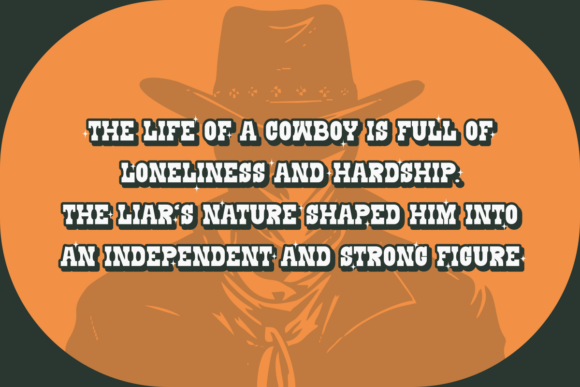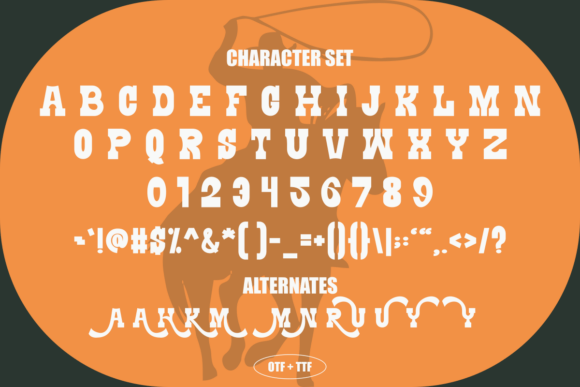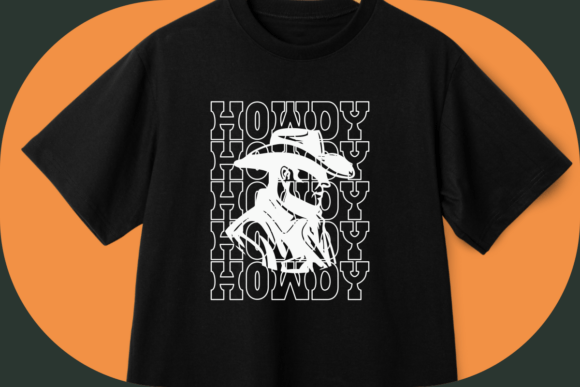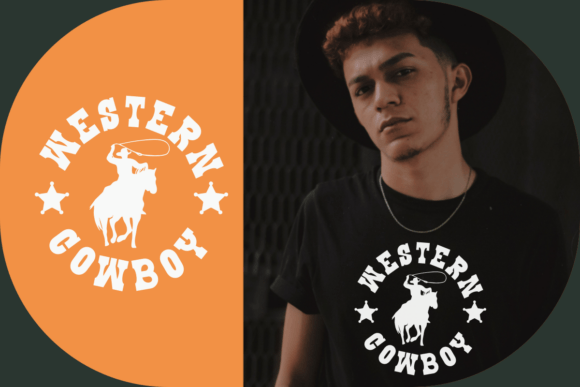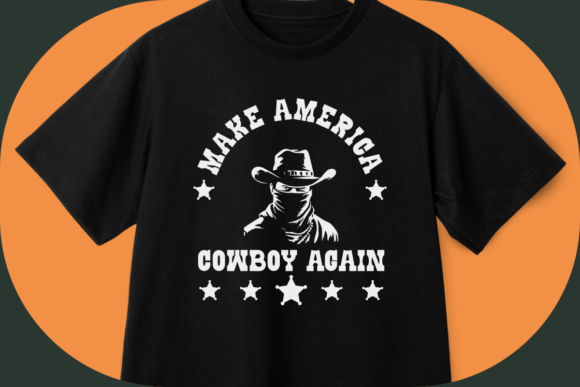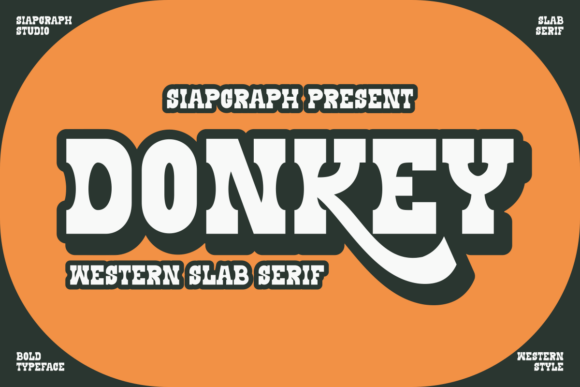
Introducing Donkey Font: The Ultimate Western-Style Slab Serif for Eye-Catching Designs
Are you a designer or crafter looking for a font that can add a touch of rustic charm to your projects? Look no further than the Donkey Font, a bold and rugged Western-style slab serif font that’s perfect for crafting eye-catching designs on t-shirts, posters, and more. With its thick strokes and distinctive serifs, this font is sure to make a statement and leave a lasting impression.
What is Donkey Font?
Donkey Font is a unique and stylish slab serif font that’s inspired by the classic typography of the American West. Its bold and rugged design makes it perfect for creating vintage-inspired designs, western-themed clothing, and any project that needs a touch of rustic charm. Whether you’re a designer, crafter, or DIY enthusiast, Donkey Font is the perfect choice for adding a touch of personality to your work.
Key Features of Donkey Font
- Bold and Rugged Design: Donkey Font features thick strokes and distinctive serifs that give it a bold and rugged look.
- Western-Style Typography: Inspired by the classic typography of the American West, Donkey Font is perfect for creating vintage-inspired designs and western-themed clothing.
- Slab Serif Design: The font’s slab serif design gives it a unique and stylish look that’s perfect for adding a touch of rustic charm to your projects.
- High-Quality Vector Graphics: Donkey Font is designed as high-quality vector graphics, ensuring that it looks great at any size.
Uses for Donkey Font
Donkey Font is a versatile font that can be used for a wide range of projects, including:
- T-Shirt Designs: Add a touch of rustic charm to your t-shirt designs with Donkey Font’s bold and rugged design.
- Posters and Flyers: Use Donkey Font to create eye-catching posters and flyers that grab attention.
- Western-Themed Clothing: Donkey Font is perfect for creating western-themed clothing, such as band tees, hats, and more.
- Vintage-Inspired Designs: Add a touch of vintage charm to your designs with Donkey Font’s classic Western-style typography.
Why Choose Donkey Font?
There are many fonts to choose from, but Donkey Font stands out for its unique and stylish design. Here are just a few reasons why you should choose Donkey Font for your next project:
- Unique Design: Donkey Font’s bold and rugged design sets it apart from other fonts.
- High-Quality Graphics: The font is designed as high-quality vector graphics, ensuring that it looks great at any size.
Tips for Using Donkey Font
Here are a few tips for getting the most out of Donkey Font:
- Use it as a Statement Font: Donkey Font is perfect for making a statement, so use it sparingly to add emphasis to your designs.
- Pair it with Other Fonts: Donkey Font pairs well with other fonts, so experiment with different combinations to find the perfect look for your project.
- Experiment with Colors: Donkey Font looks great in a variety of colors, so don’t be afraid to experiment and find the perfect color scheme for your project.
Donkey Font is a bold and rugged Western-style slab serif font that’s perfect for crafting eye-catching designs on t-shirts, posters, and more. With its thick strokes and distinctive serifs, this font is sure to make a statement and leave a lasting impression. Whether you’re a designer, crafter, or DIY enthusiast, Donkey Font is the perfect choice for adding a touch of rustic charm to your work.